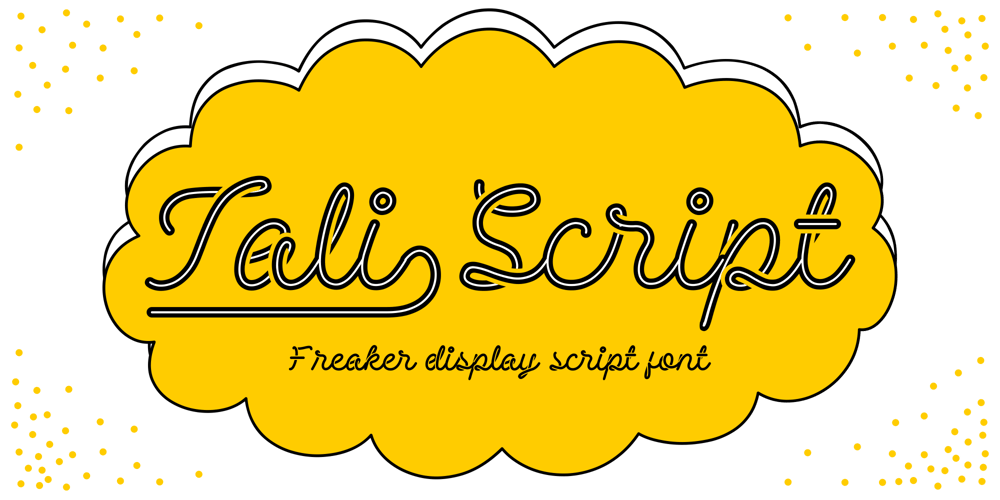
Tali
Tali font
Tali Font Family was designed by Muhammad Jauhar Azmi and published by Brainware Graphic. Tali contains 2 styles and family package options. Tali is a simple unique display script font inspired by hype for type font called sneaker script.